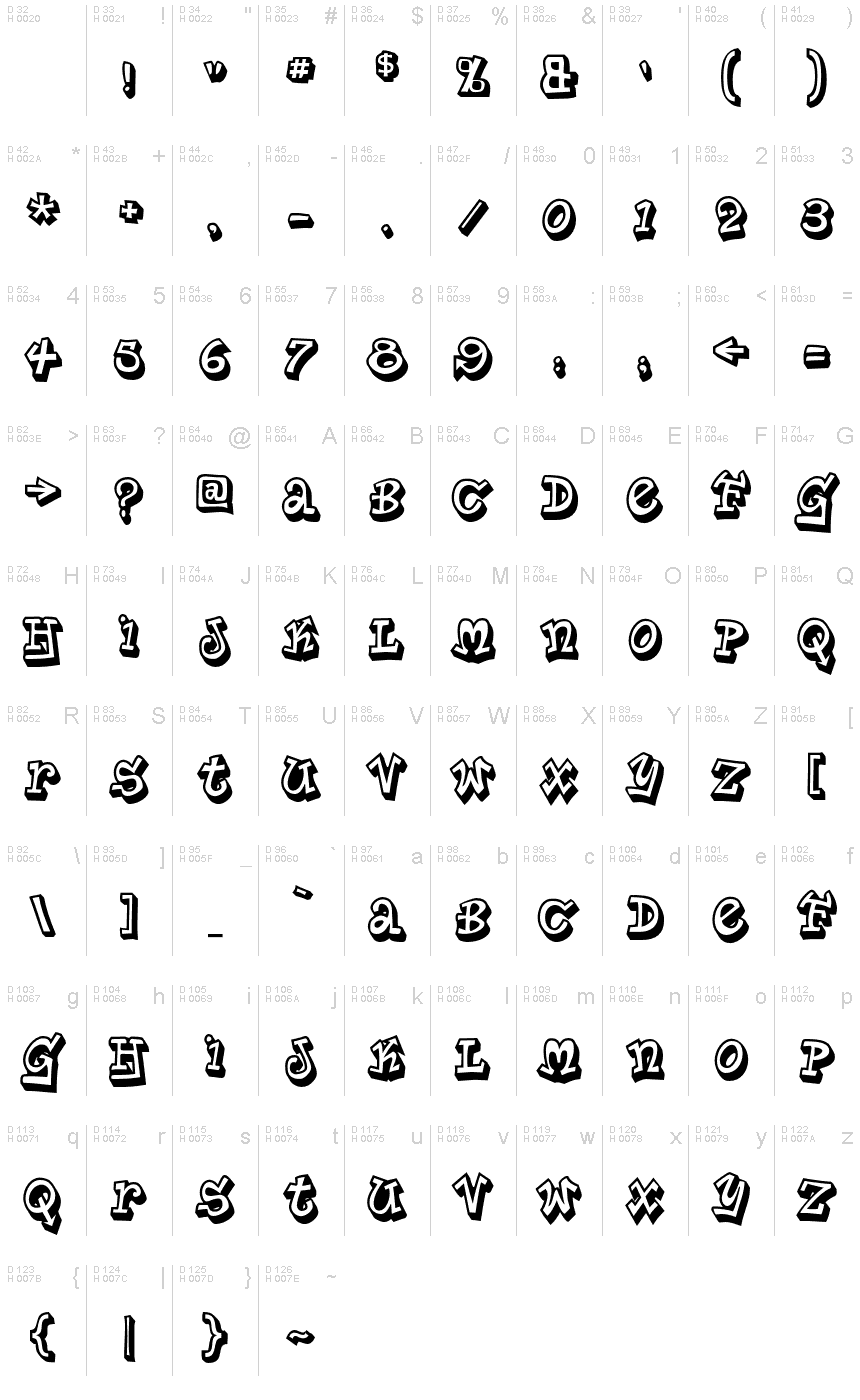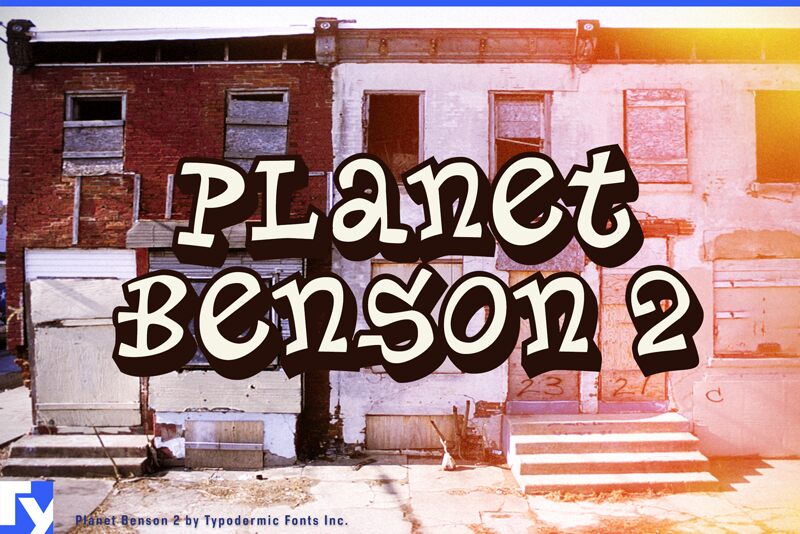
Planet Benson Two emerges as a standout typeface within the Planet Benson family, boasting the distinctive hand of renowned font designer Ray Larabie. This font encapsulates the vibrant energy of street art with its 3D graffiti style, bringing an urban edge to any design project. The bold, dynamic contours and shadow effects forge a sense of depth that seems to leap off the page, making it an exceptional choice for titles, posters, and any creative work aiming to make a strong visual statement.
The aesthetic appeal of Planet Benson Two lies in its balance between playfulness and impact. Its character shapes are imbued with a unique personality that resonates with authenticity - reminiscent of the fluidity found in spontaneous spray-paint creations. Whether you're targeting a youthful audience or looking to inject some contemporary flair into your branding, this typeface is equipped to deliver memorable visuals that captivate and engage.
In considering its application across various media, Planet Benson Two's readability and flair for attention-grabbing make it particularly suitable for bold advertising campaigns, eye-catching web graphics, and innovative packaging designs where distinction is key. Explore the potential of Planet Benson Two in your next creative endeavor and watch your concepts come alive with an unmistakable urban vibe.
Planet Benson 2 was modeled after novice suburban graffiti.